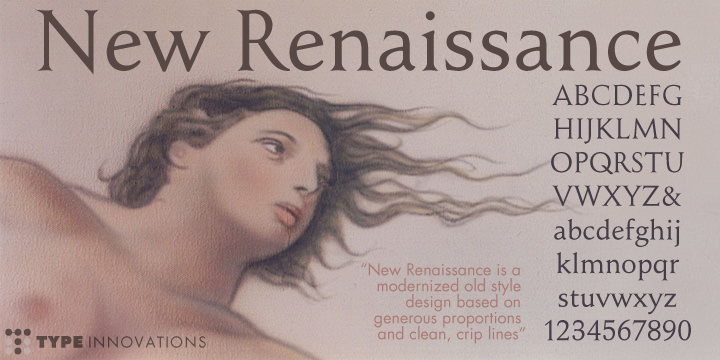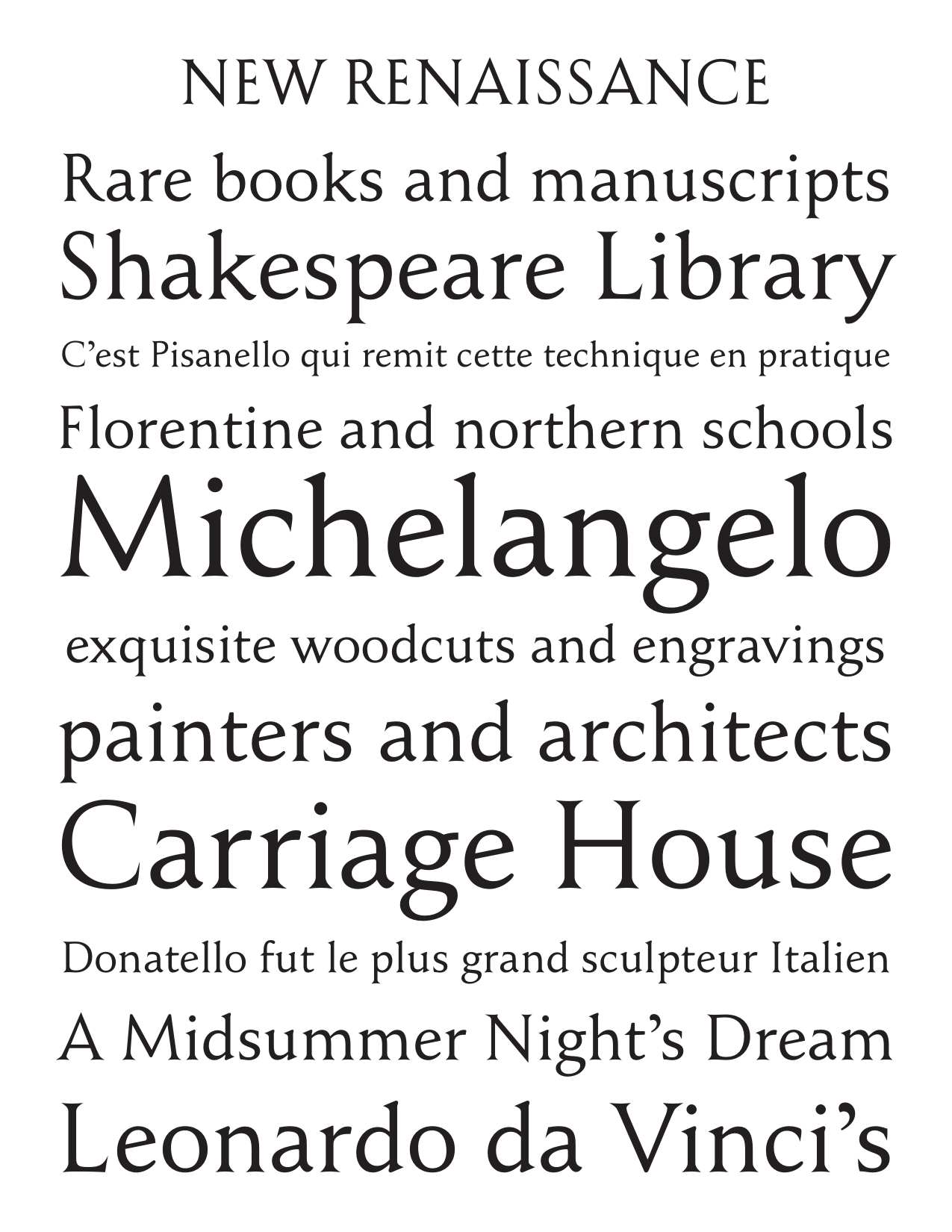
New Renaissance
New Renaissance is a modernized old style design based on generous proportions and clean, crisp lines. A 'New Renaissance' for the 21st century, New Renaissance makes for easy reading and looks good in both text and display.